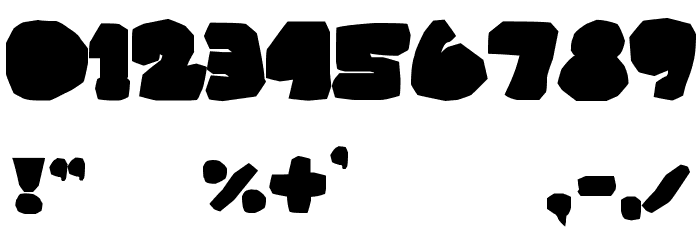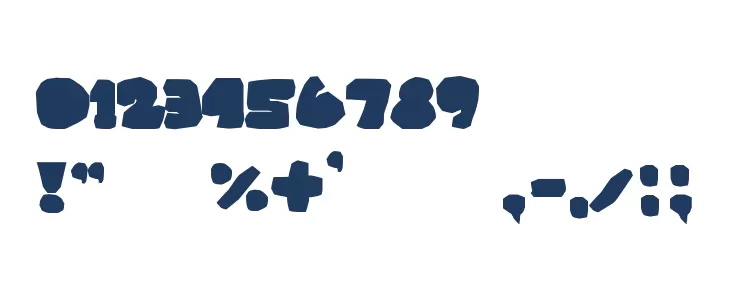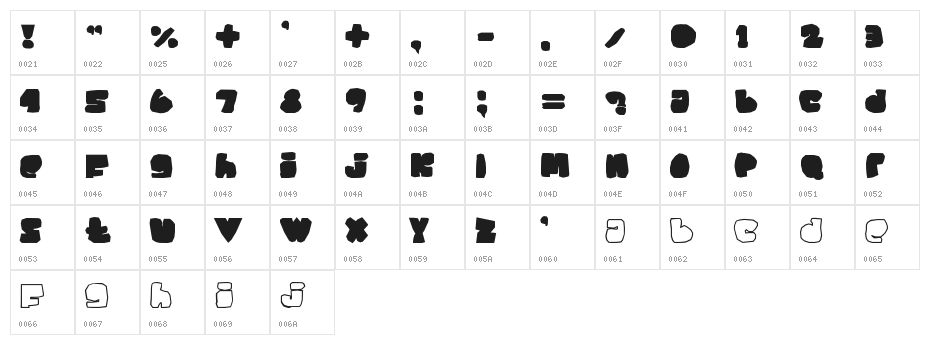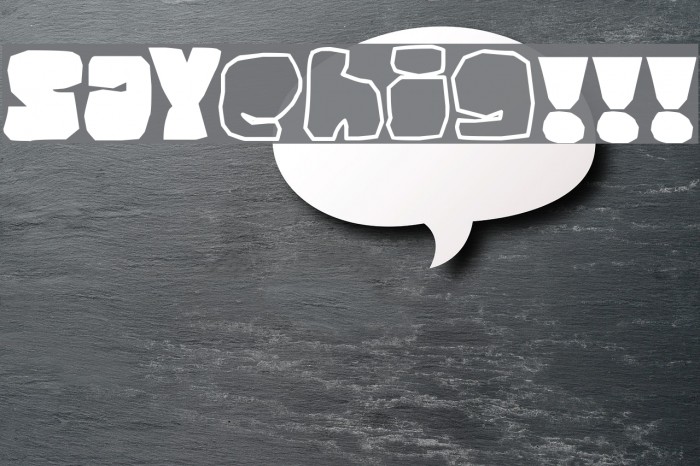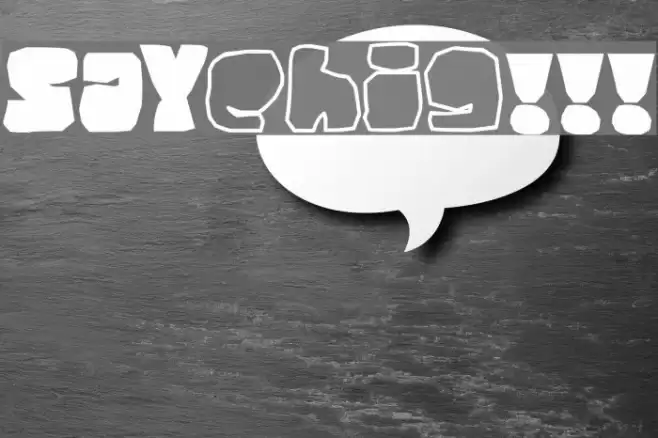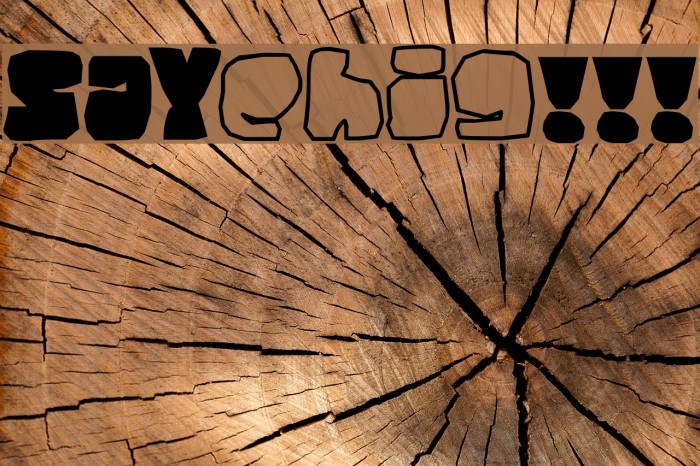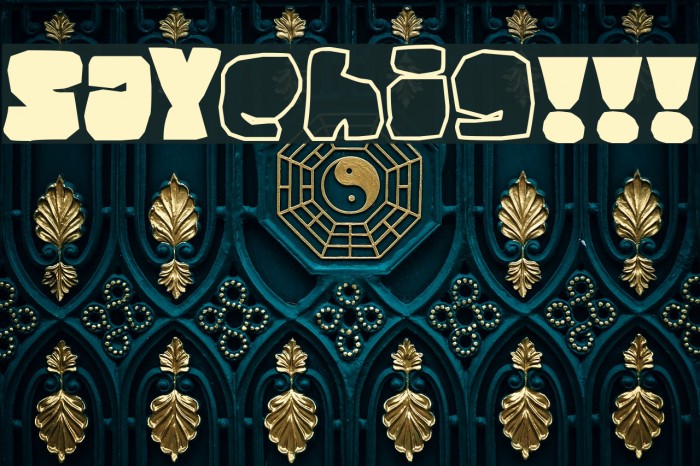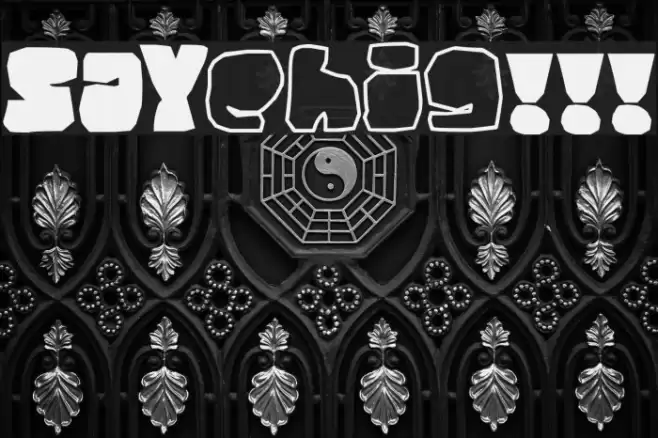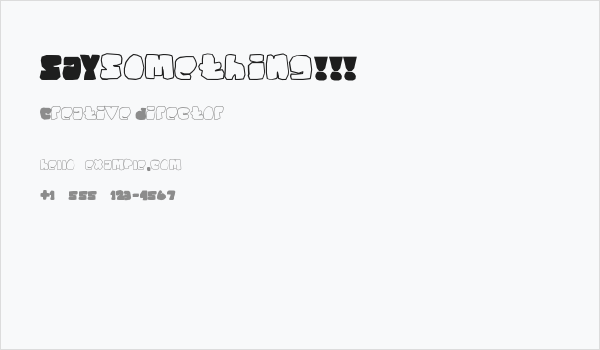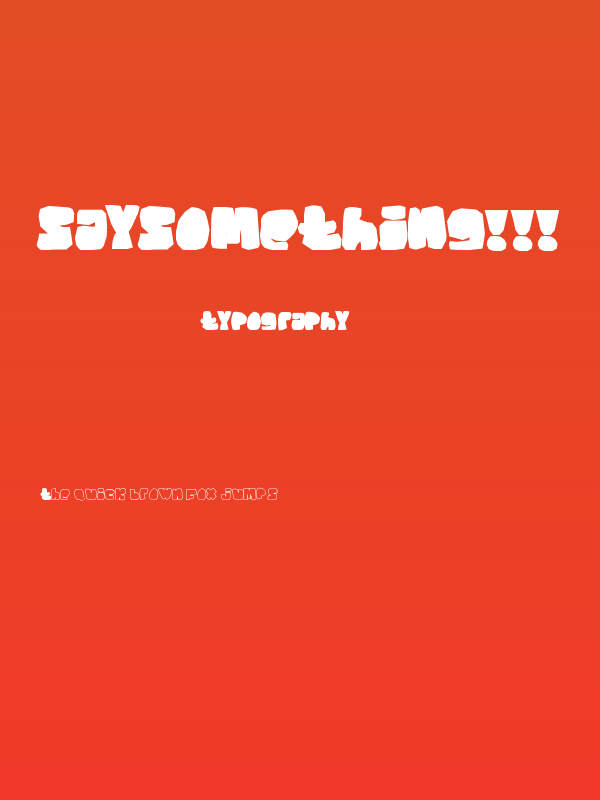
SAYsomething!!! Font
SAYsomething!!! Description
This font features a bold and playful design with a chunky, geometric style. The characters are heavily stylized, with a blocky appearance that gives them a strong visual presence. The uppercase and lowercase letters maintain a consistent width, contributing to a cohesive look. The numbers and special characters follow the same bold and playful aesthetic, making them stand out. The font's unique style is ideal for projects that require a fun and eye-catching typeface.
| Overall Style | Playful and Modern |
| Proposed Projects | Ideal for children's books, playful branding, posters, and creative advertising. |